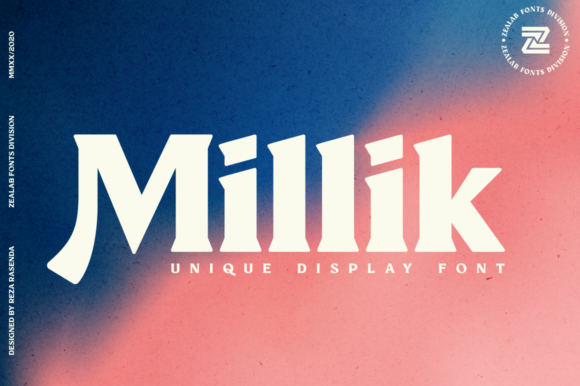
Journey into the realm of Millik Font, a display font that dares to be bold and chunky. A creation of the esteemed Zealab Fonts Division, Millik is not just a font; it's an artistic masterpiece, meticulously crafted to elevate your creative visions to unparalleled heights. Immerse yourself in the world of Millik and unlock a treasure trove of possibilities.
With its robust and commanding presence, Millik Font is the ultimate choice for captivating designs that demand attention. Its carefully designed letterforms exude a sense of power and confidence, leaving an indelible mark on your audience. Unleash your creativity and watch as Millik transforms your words into striking visual statements.
Designed with versatility in mind, Millik Font effortlessly adapts to a wide range of design projects. Whether you're crafting logos that leave a lasting impression, creating eye-catching posters that ignite curiosity, or developing website designs that captivate visitors, Millik is your steadfast companion. Its adaptability knows no bounds, allowing you to weave your creative magic across various mediums.
Step into the spotlight and let Millik Font be your creative ally. As you explore the depths of your imagination, Millik will faithfully translate your ideas into stunning visual creations. Experience the thrill of witnessing your designs come to life with a font that commands attention and ignites emotions.
Don't settle for ordinary fonts that blend into the background. Embrace the boldness of Millik Font and embark on a creative journey where your designs shine brighter than ever before. Let Millik be your muse, your guiding light, as you craft designs that resonate with your audience and leave a lasting impact.